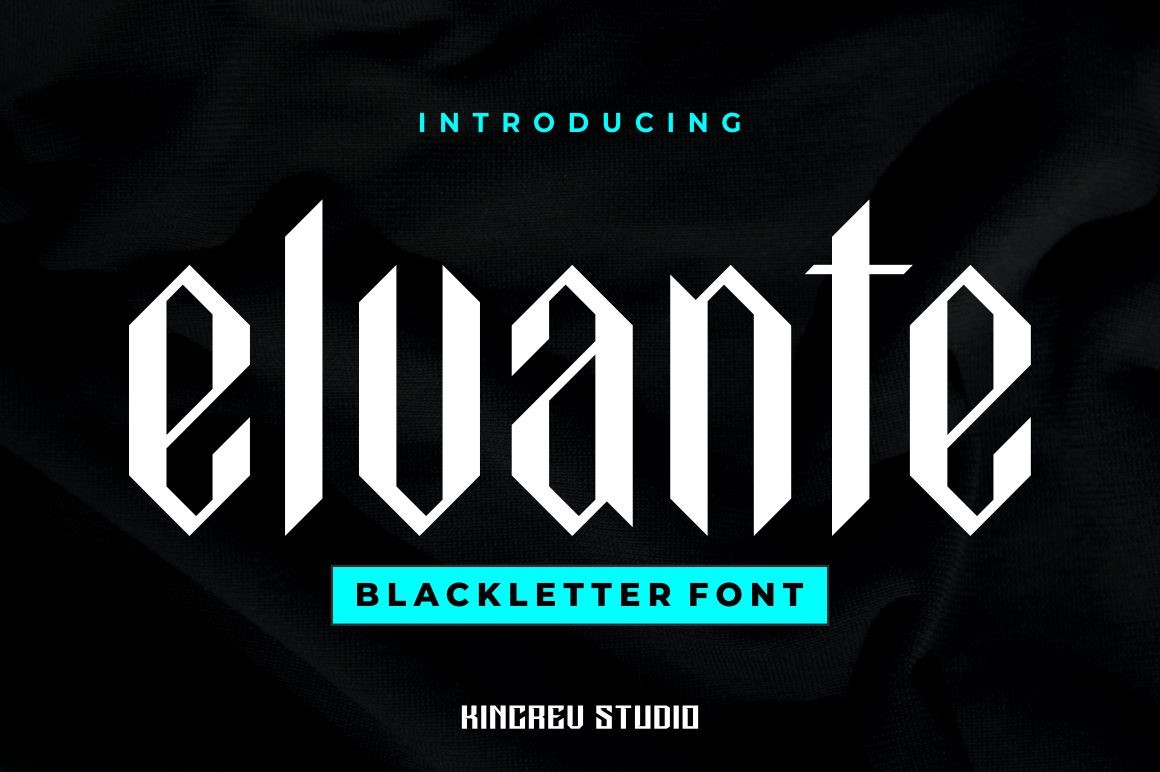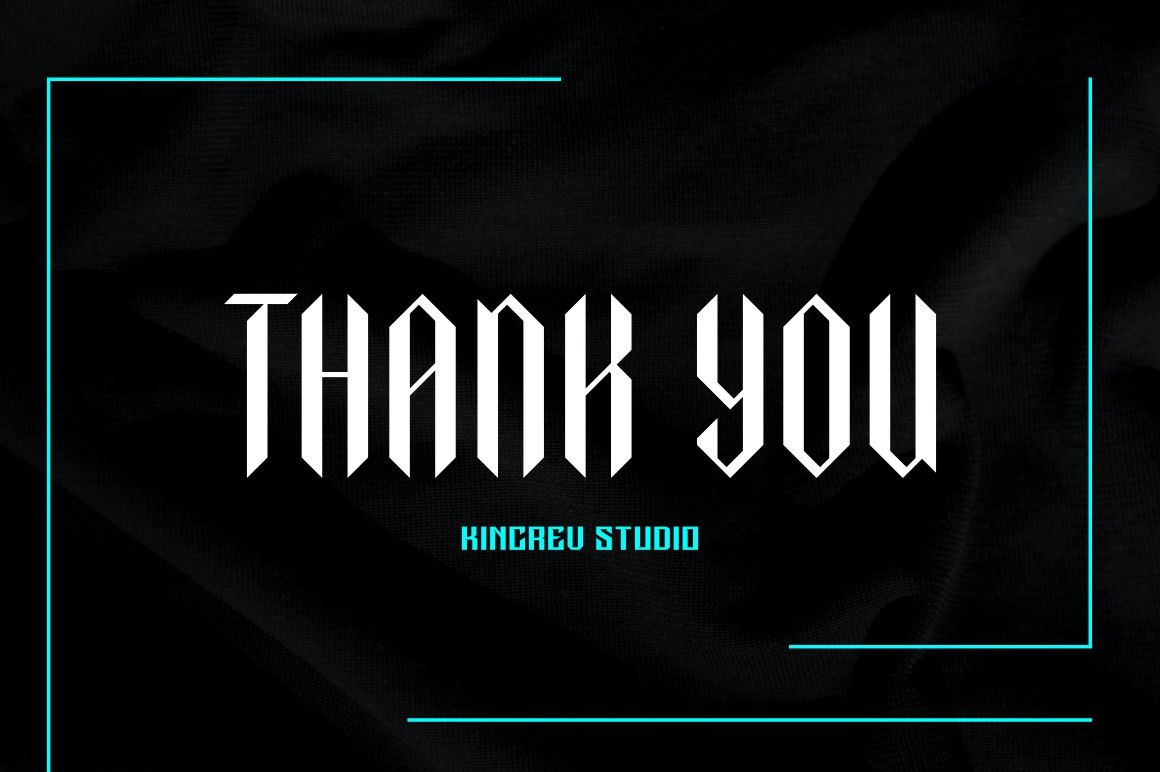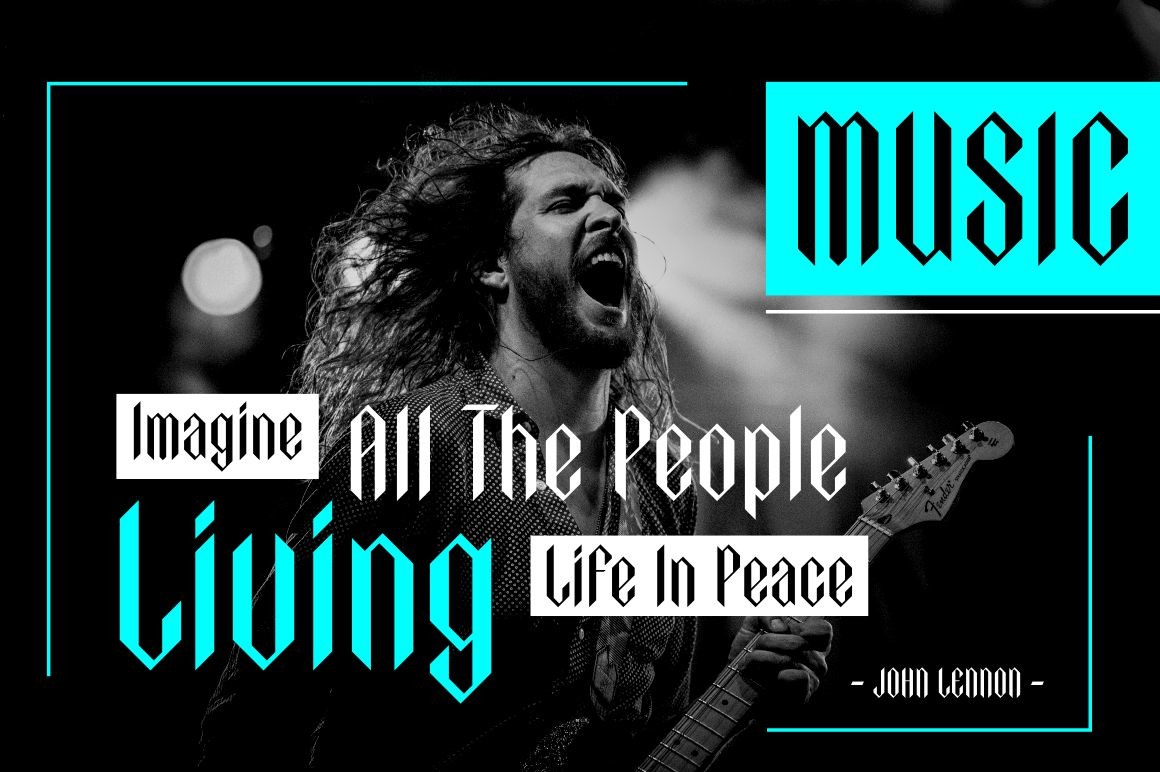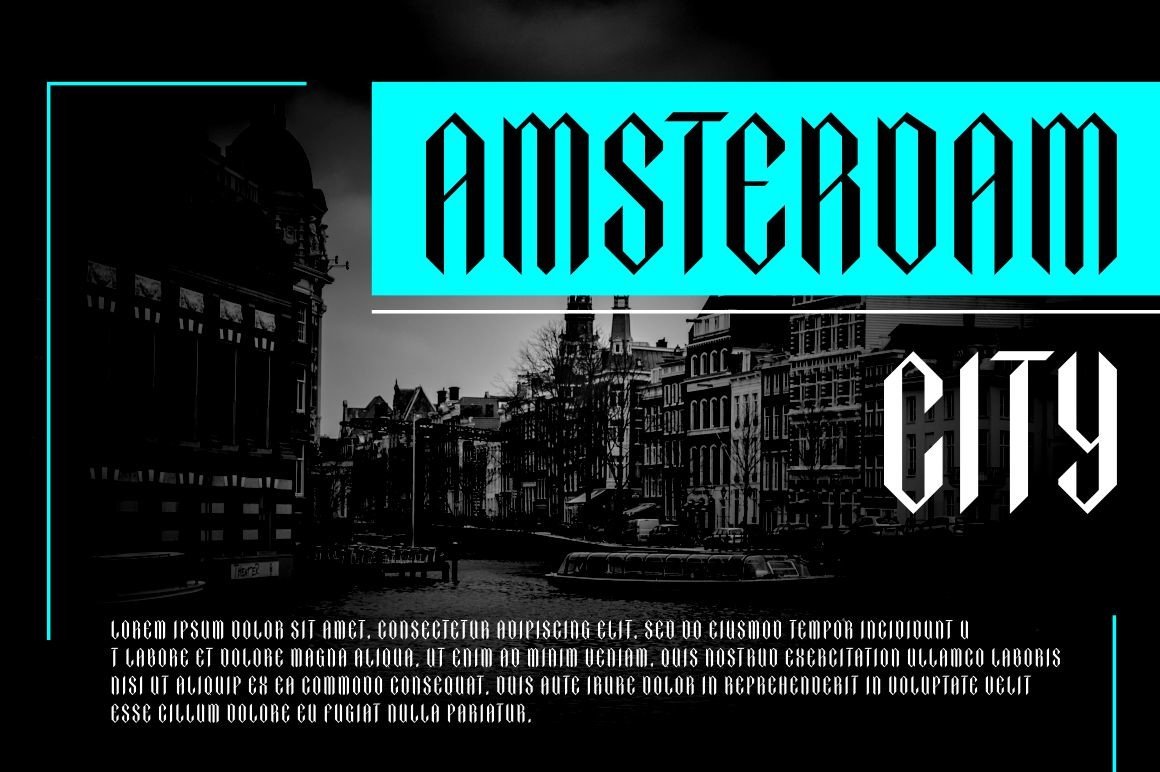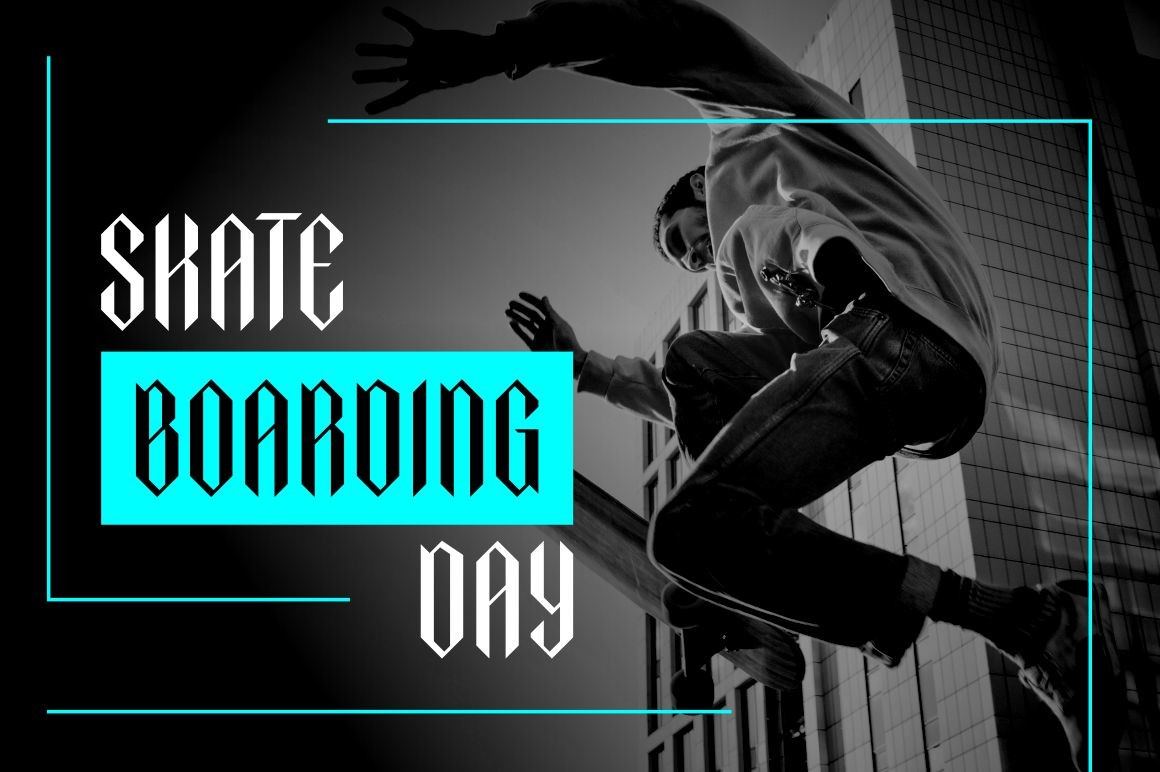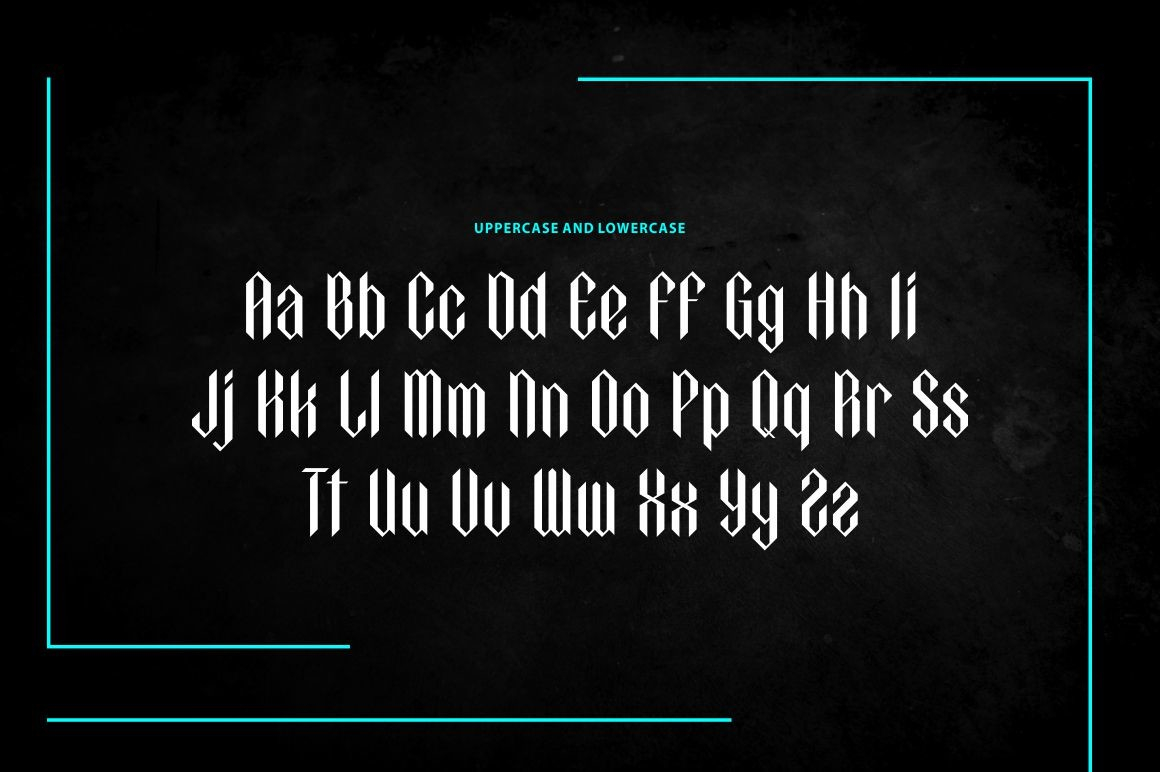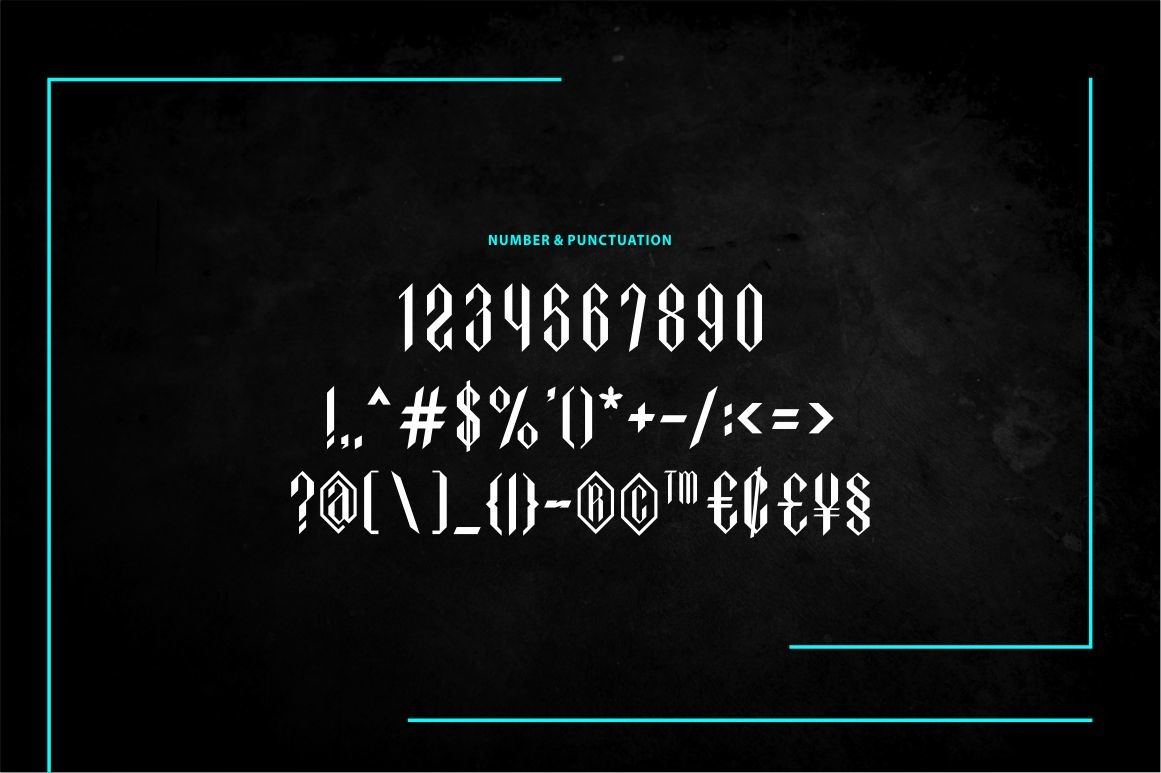
About Elvante Font
Elvante is a modern and uniquely designed blackletter font. It has a classy, elegant and modern look that can be used for logos, branding, invitations, stationery, wedding designs, social media posts, and much more!